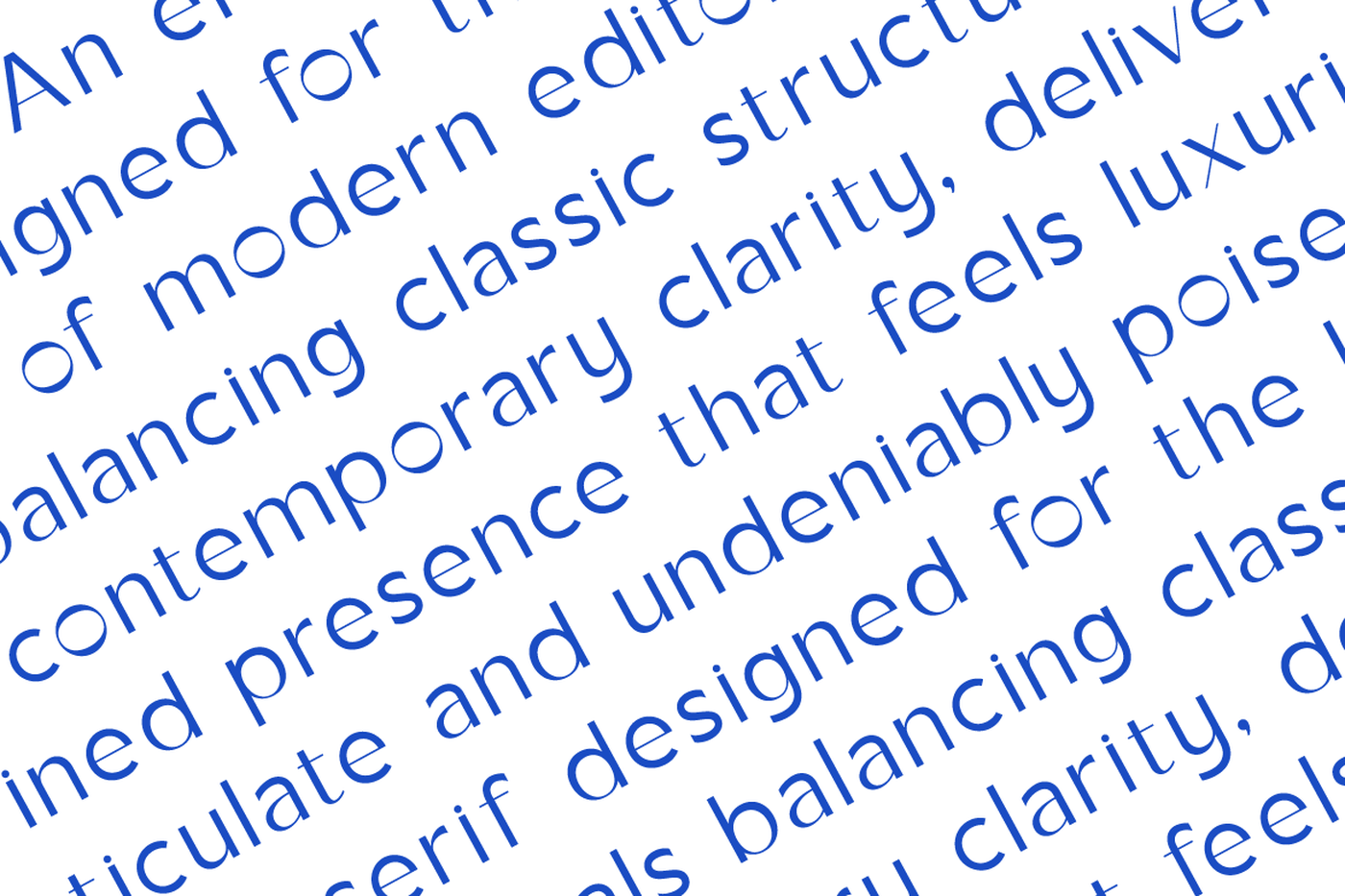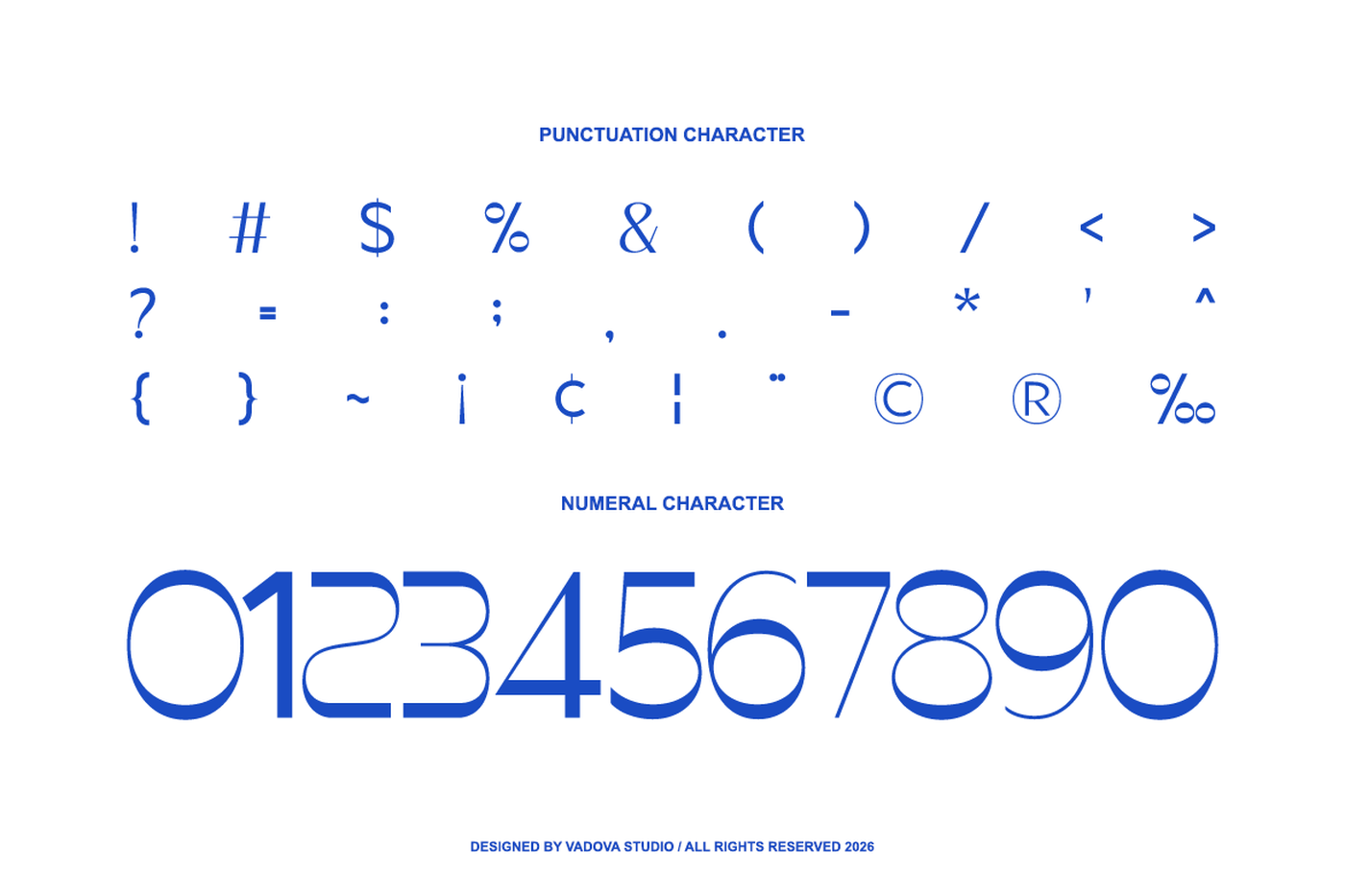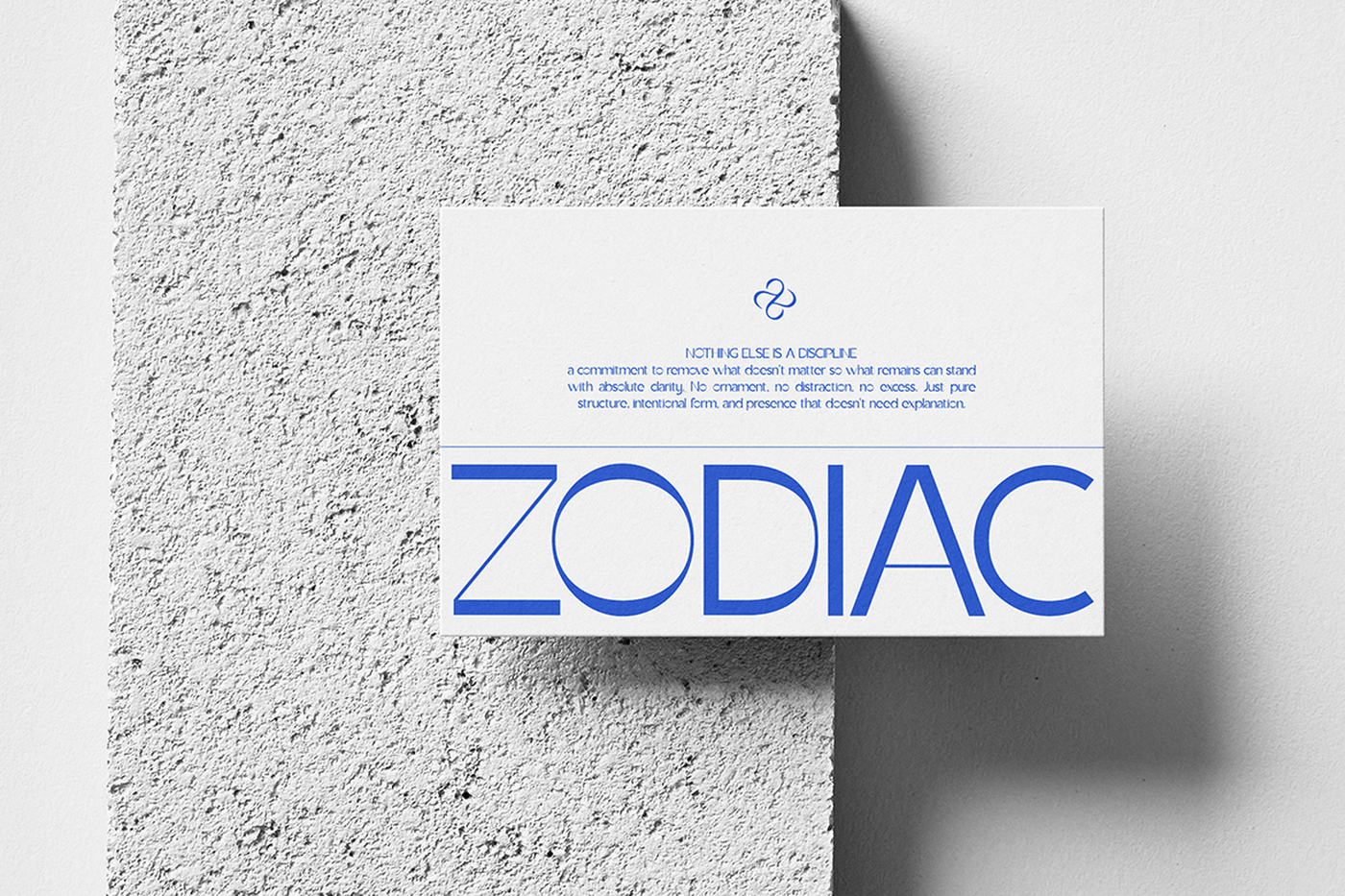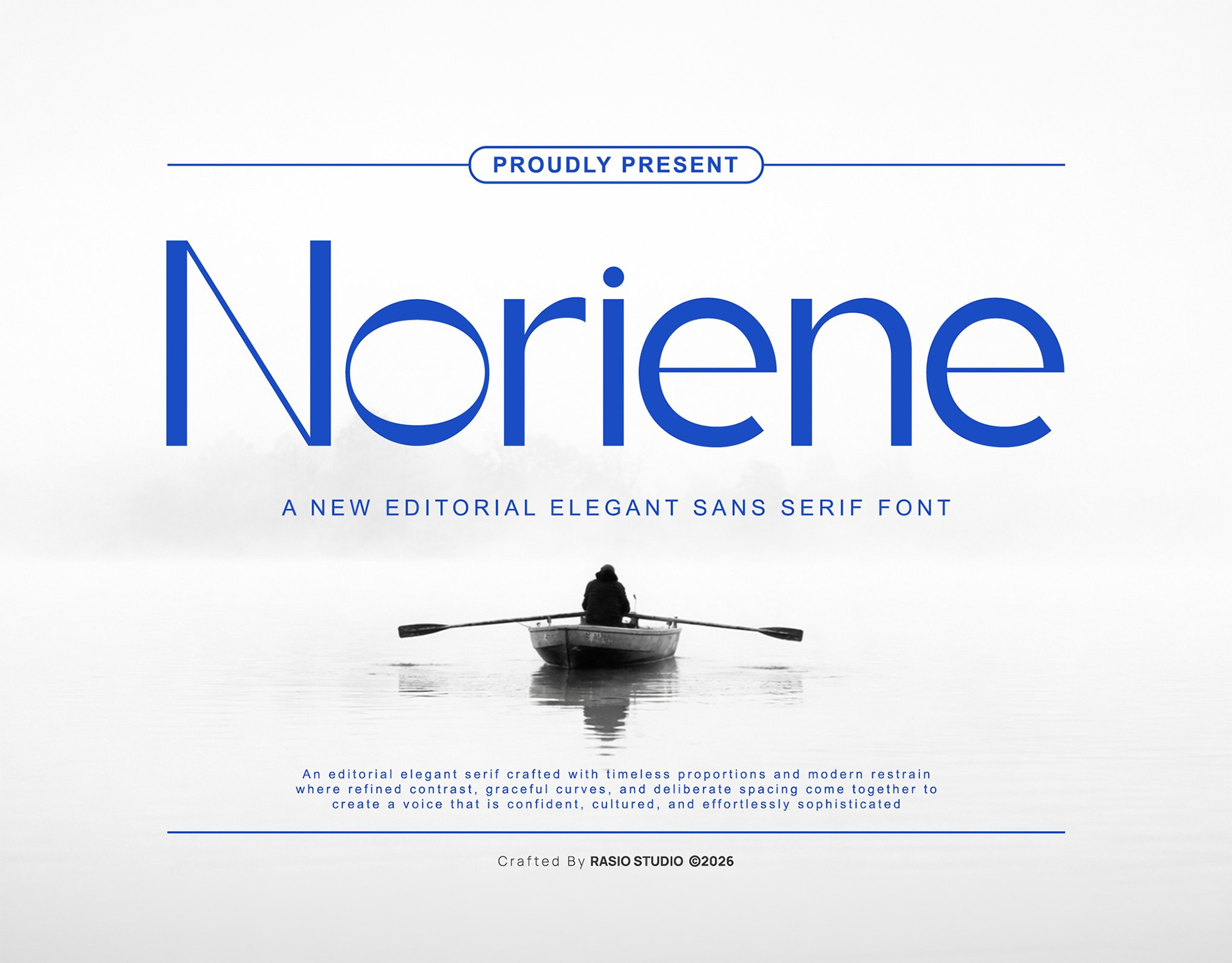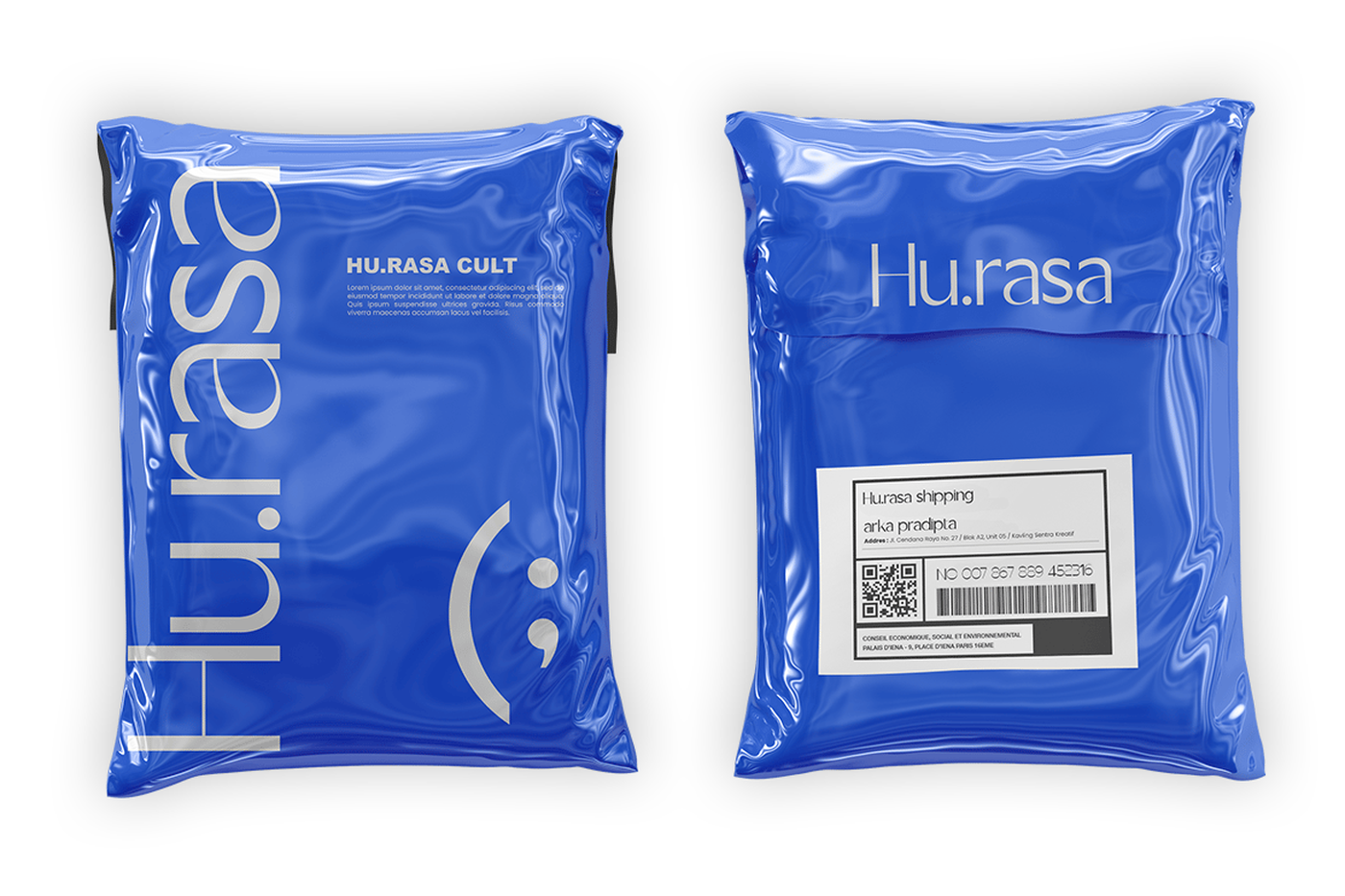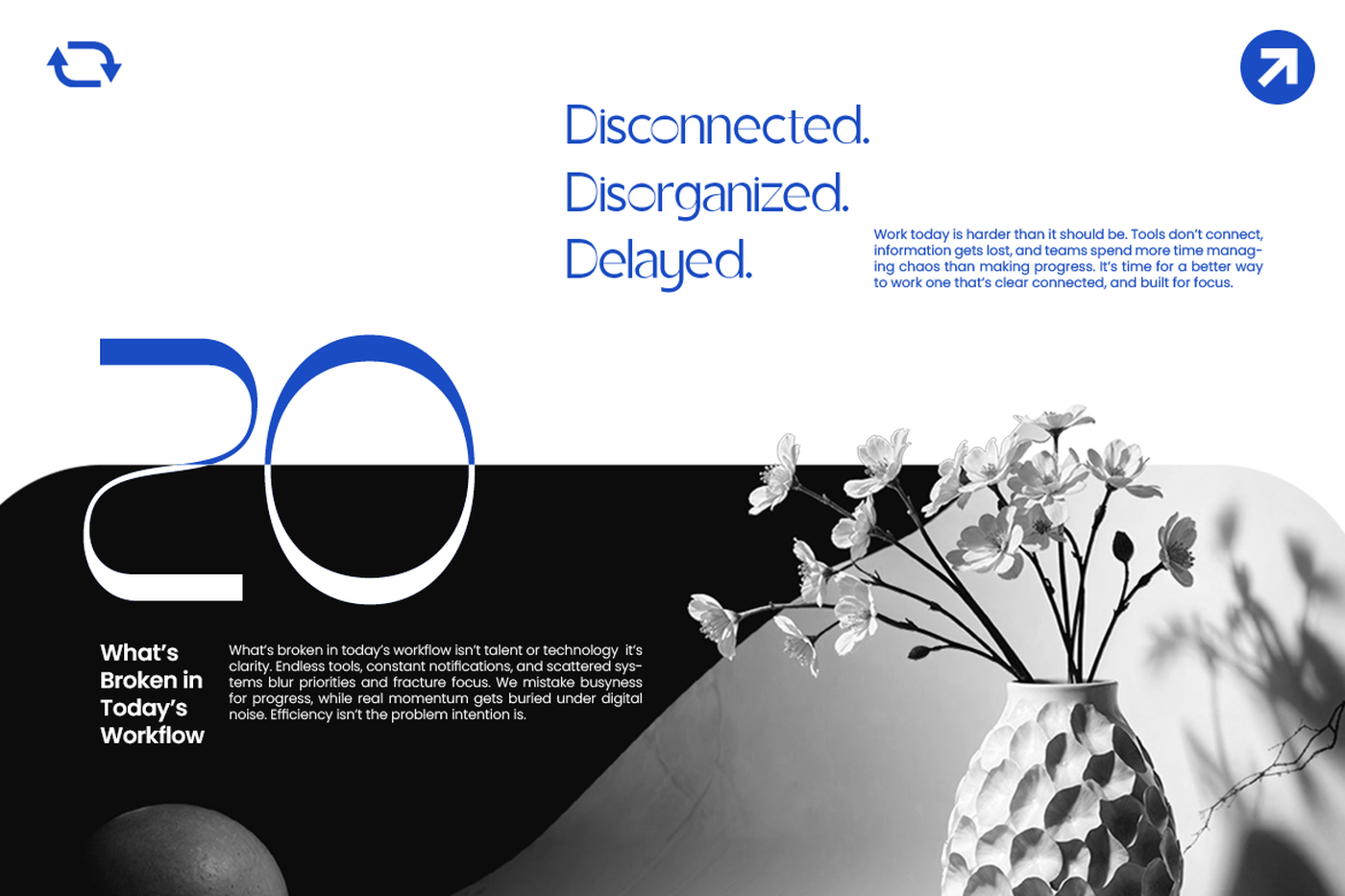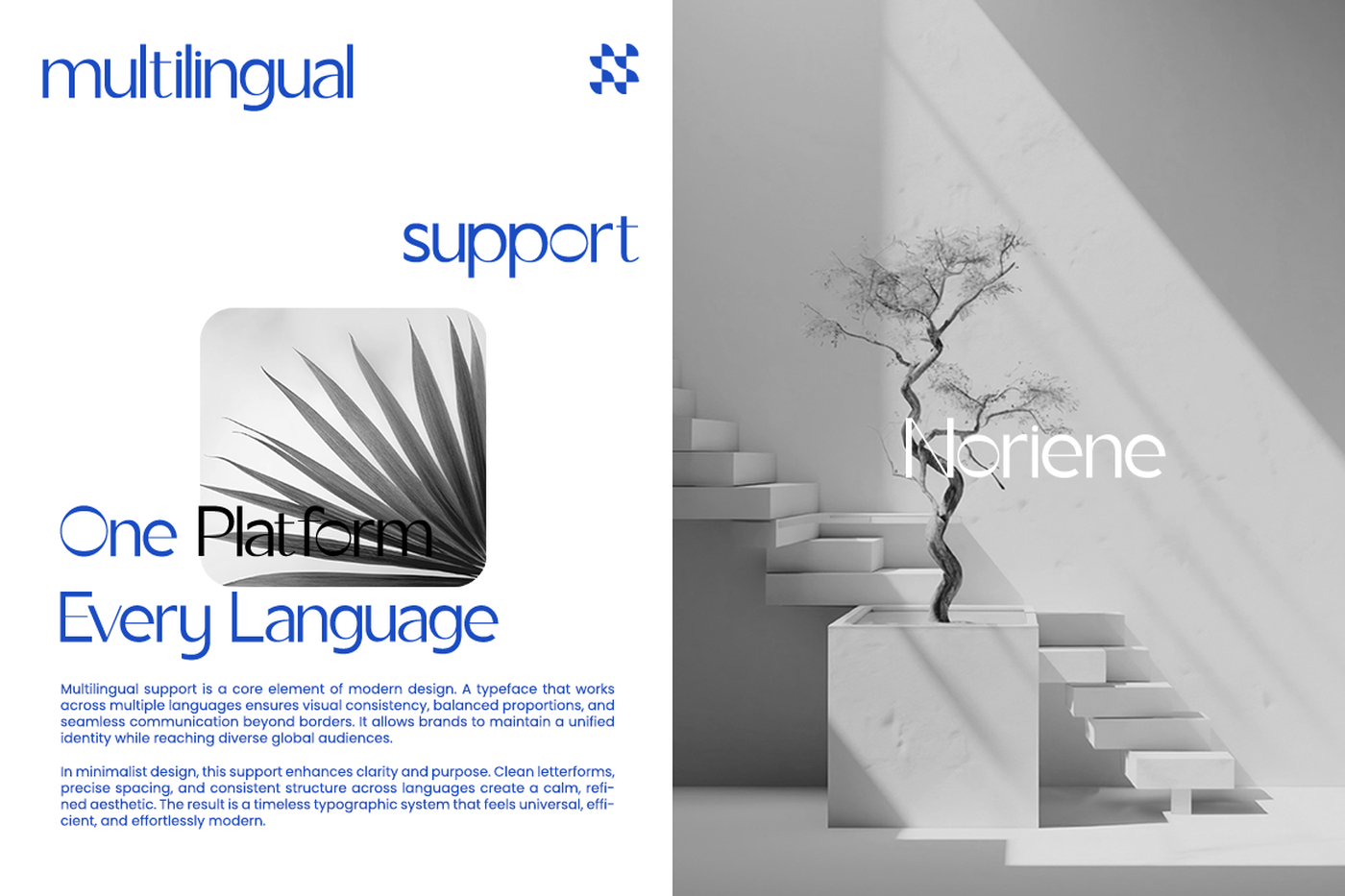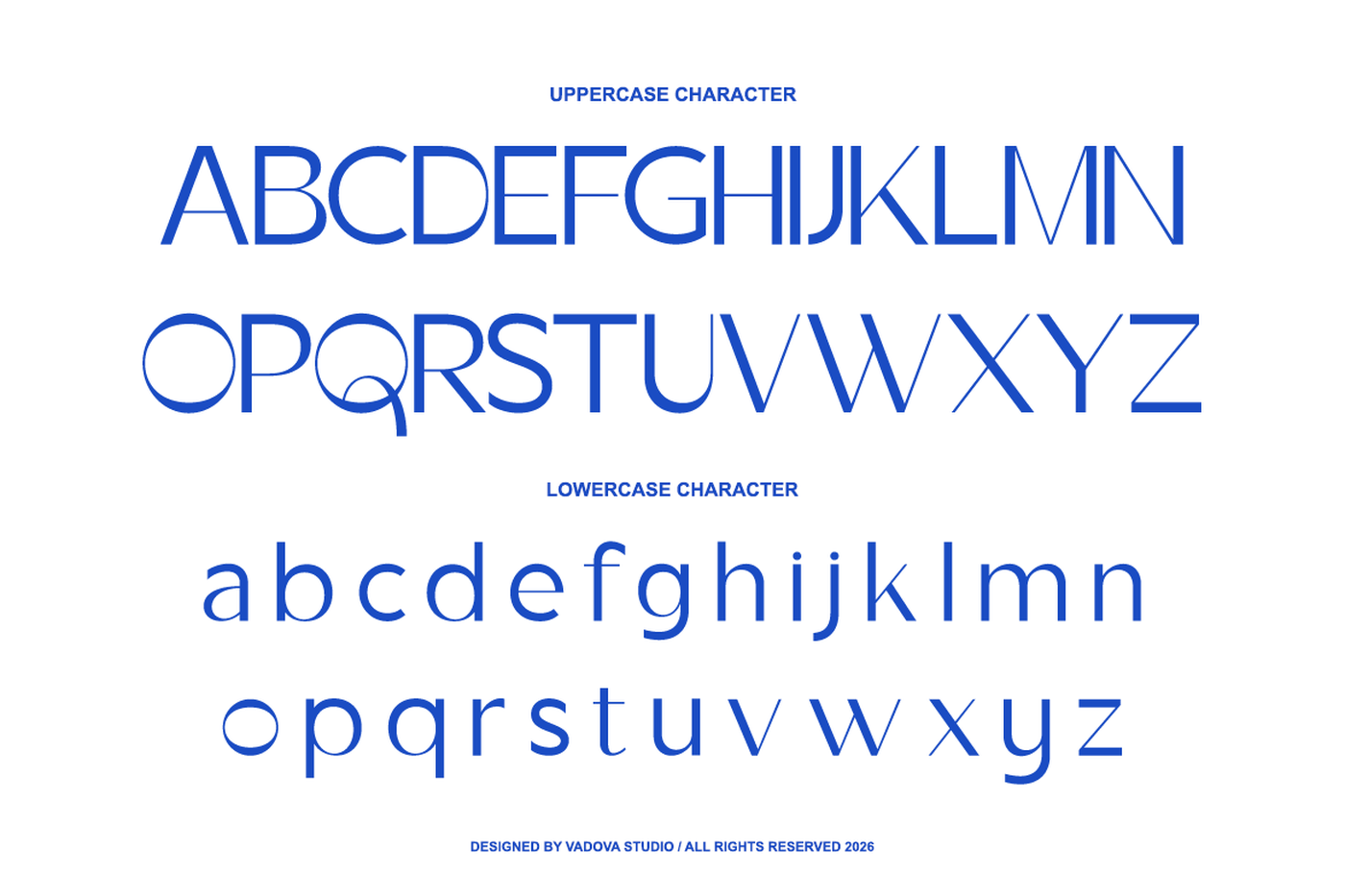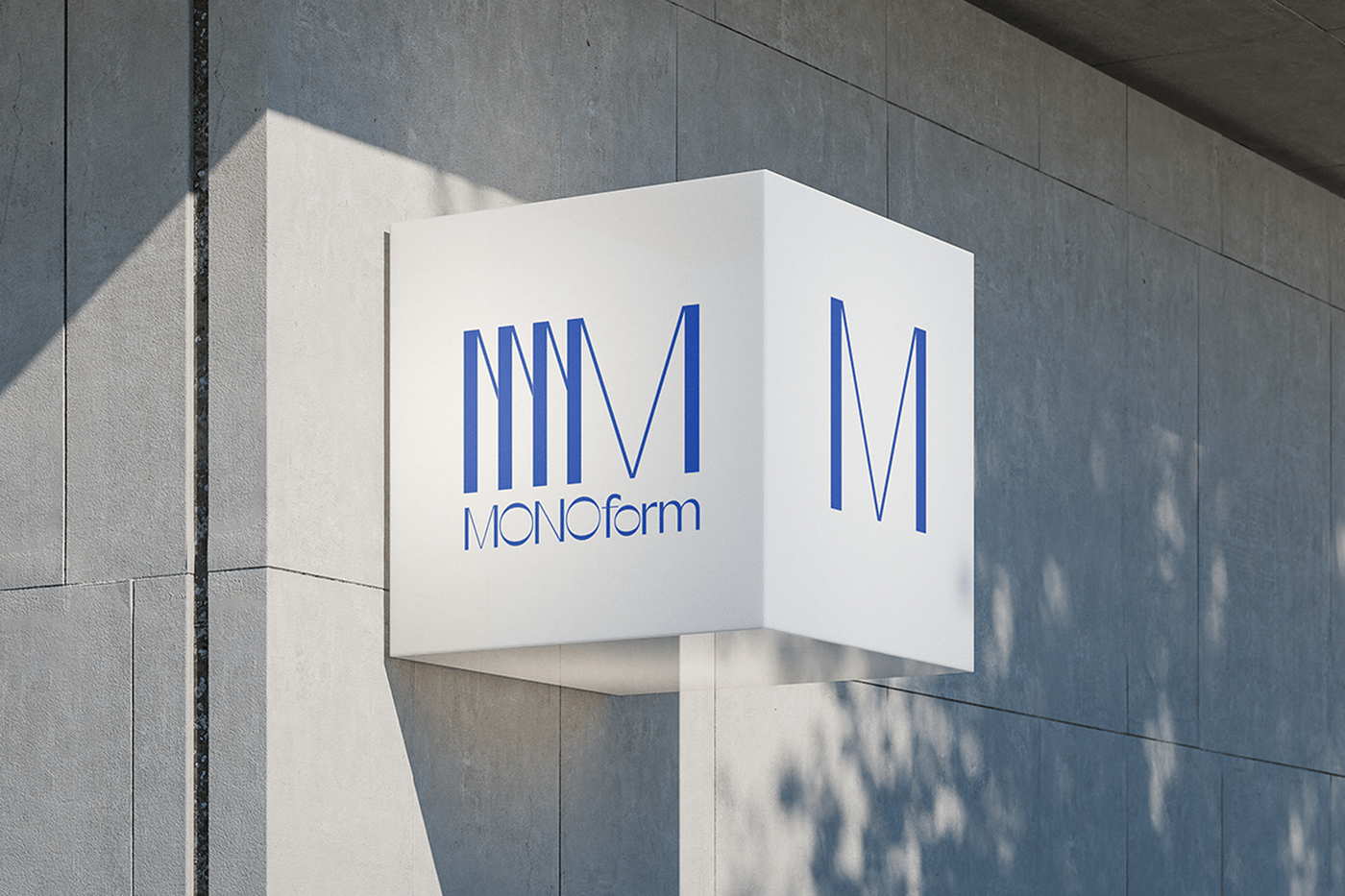
Noriene - Elegant Sans Serif Font
Noriene is a refined editorial sans serif typeface designed with timeless proportions and modern restraint. Featuring graceful curves, clean stroke contrast, and carefully balanced spacing, this font delivers a sophisticated and confident visual voice. The elegant letterforms combine contemporary minimalism with subtle stylistic details, making it ideal for high-end branding and editorial layouts. Relevance and Use Cases is perfect for Noriene is highly relevant for premium and modern design projects that require elegance without excessive ornamentation. Perfect for fashion magazines, luxury product branding, corporate identities, creative agencies, portfolio websites, high-end packaging, editorial layouts, beauty brands, and modern marketing campaigns. Its balanced structure and graceful curves make it ideal for projects seeking a confident, cultured, and timeless aesthetic.